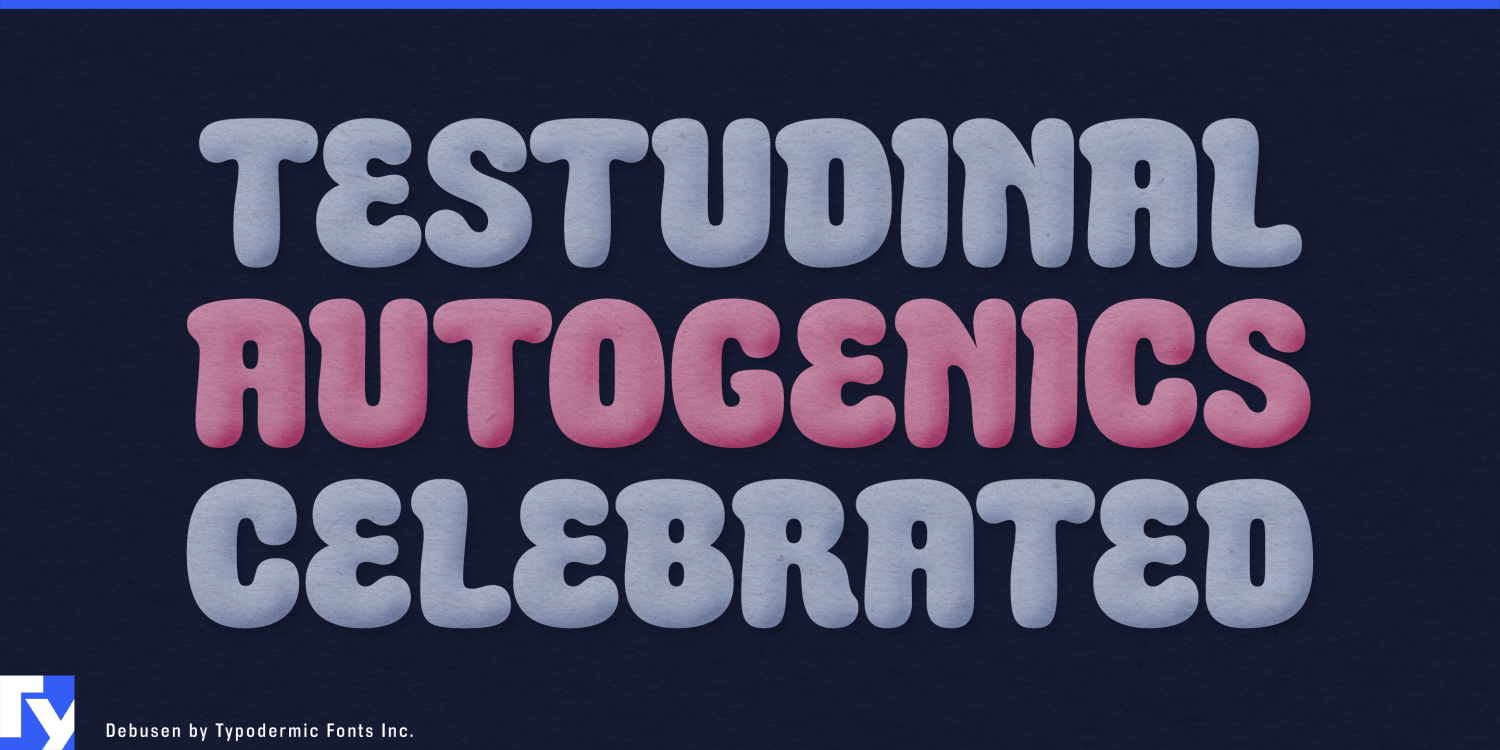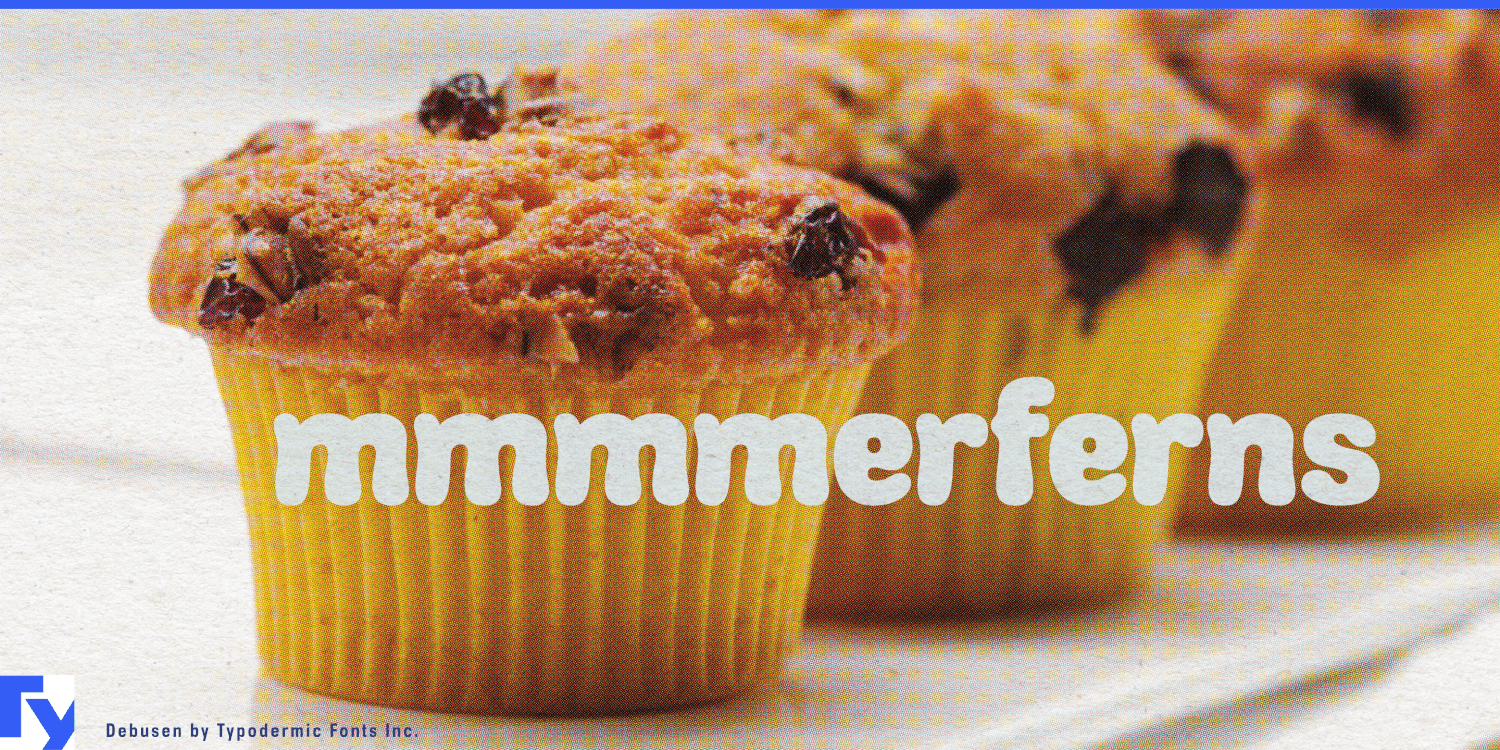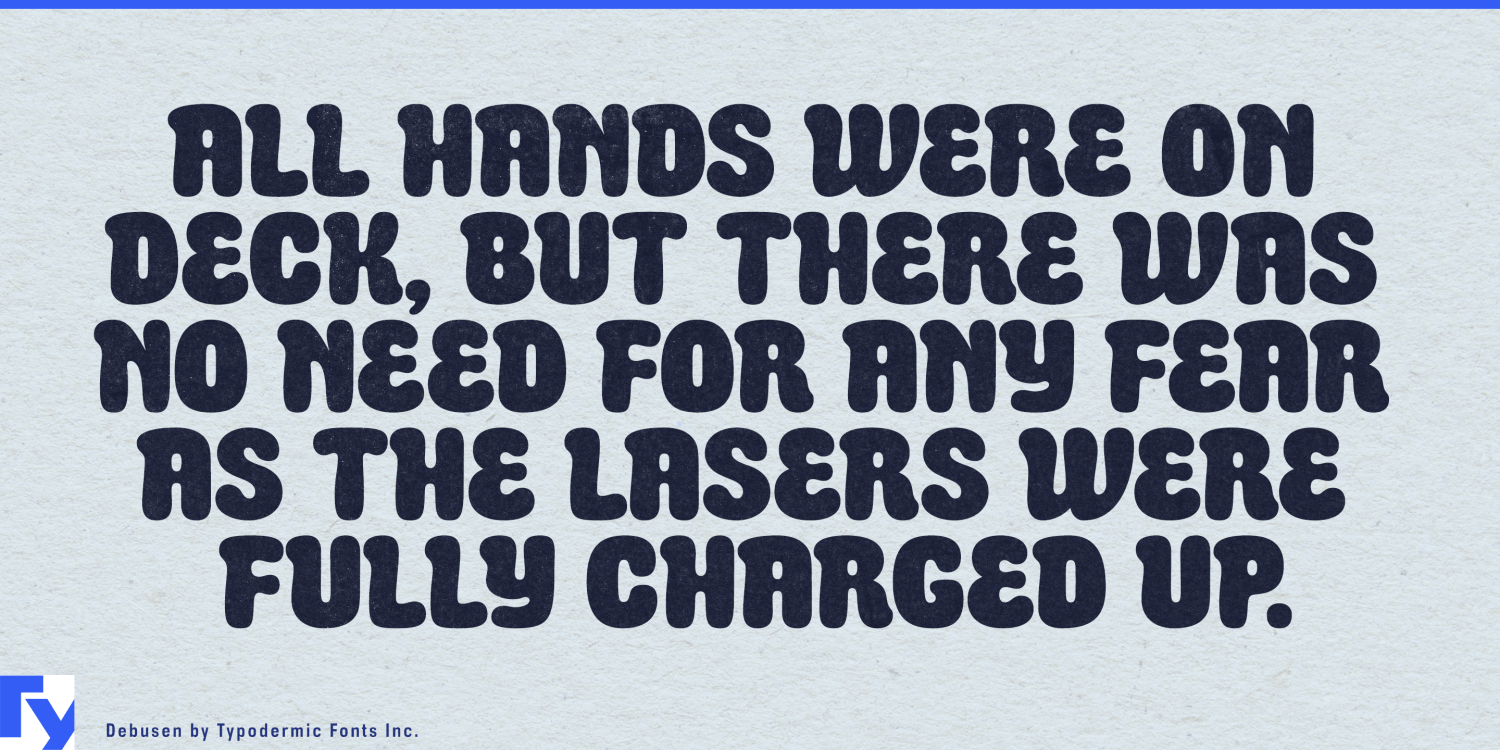
About Debusen
Debusen: Where softness meets sophistication in type design. This charming typeface, with its gently rounded edges and plump letterforms, brings a touch of warmth and approachability to any project. Imagine your words wrapped in a cozy embrace, inviting…